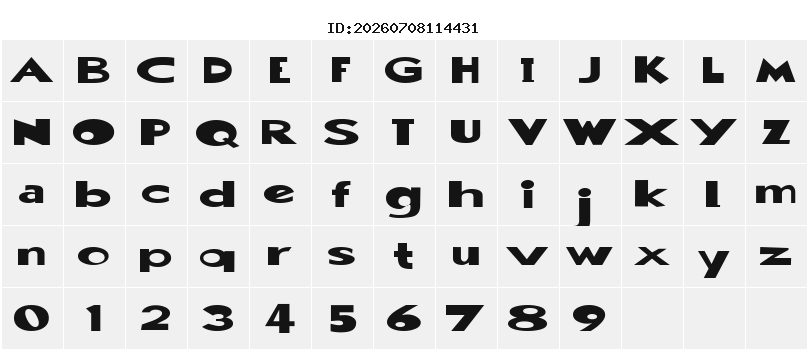
Dabble Combo Preview
About Dabble Combo.ttf
Dabble Combo.ttf is a modern, elegant sans-serif font designed for ultimate readability and visual harmony. Perfect for branding, headlines, web design, and print materials.